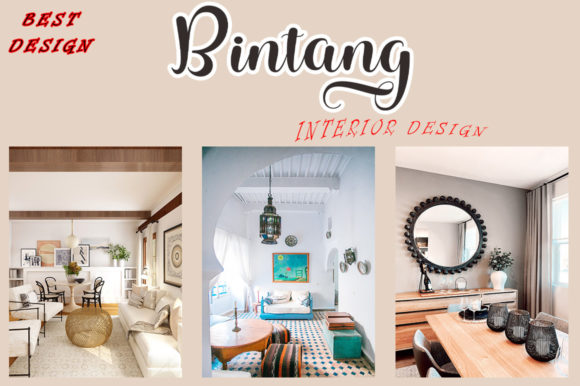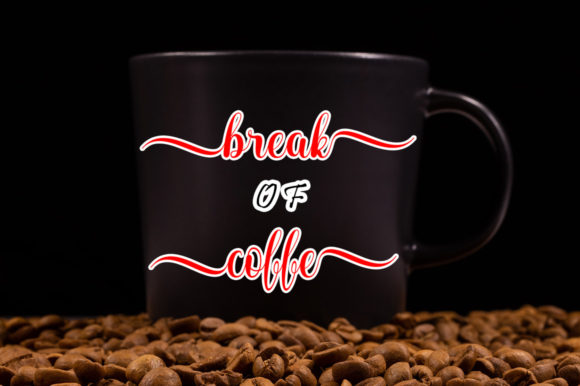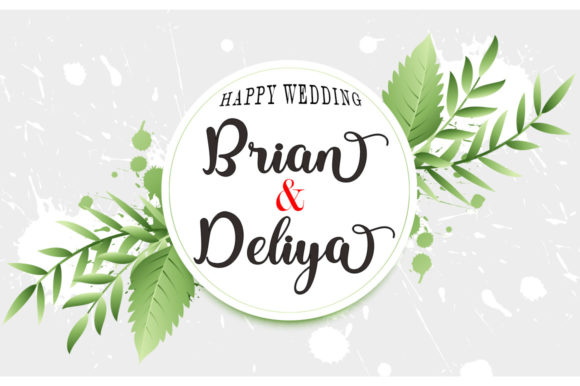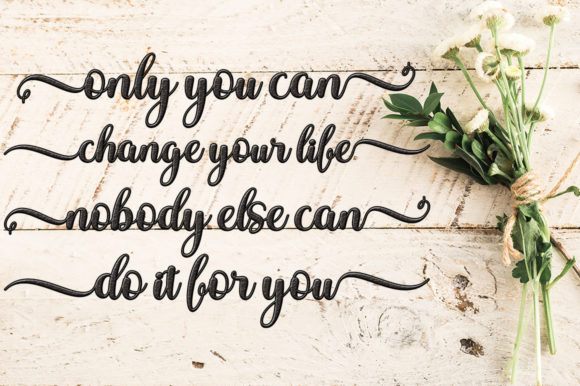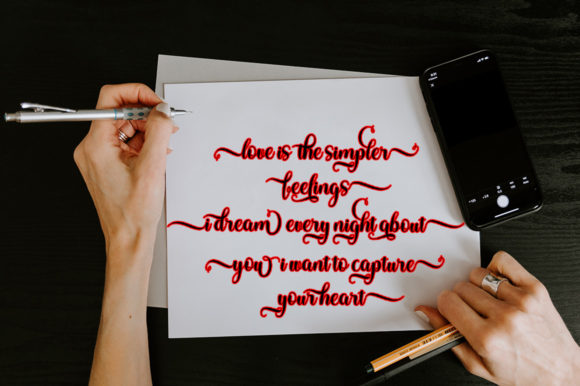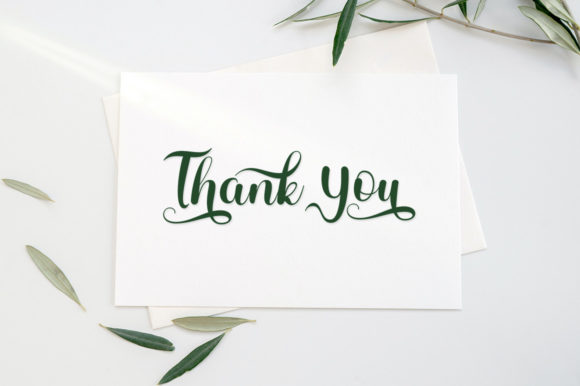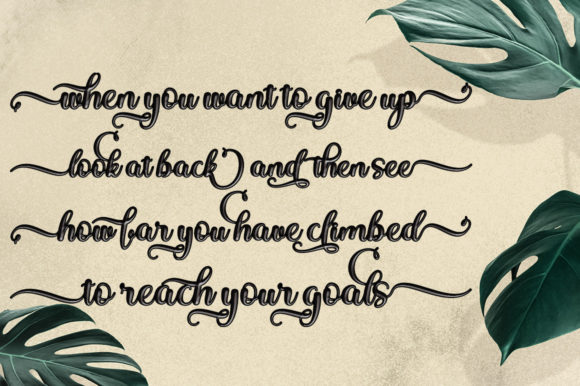
Bulan Font
About Bulan Font
**Bulan Font: Stylish Elegance for Timeless Designs**
Step into the world of refined design with the “Bulan” font – a stylish and beautiful script font that effortlessly balances grace and character. Whether you’re working on a diverse range of design projects, “Bulan” offers a timeless elegance that enhances the visual appeal of your creations.
The allure of “Bulan” lies in its carefully crafted script, where each character exudes a sense of style and beauty. The font strikes a perfect balance, making it suitable for a large design pool – from logos and branding to invitations, labels, and more.
For logos and branding, “Bulan” becomes a distinctive mark of sophistication. Its stylish characters create a visual identity that stands out with elegance, making a lasting impression on your audience. The font adds a touch of class to your brand visuals, setting the tone for a refined and memorable presence.
In the realm of invitations and labels, “Bulan” elevates the design with its beautiful and balanced characters. Whether you’re announcing a special event or labeling a product, the font lends an air of timeless charm, making your message visually appealing and captivating.
The versatility of “Bulan” extends to a variety of design projects, making it a valuable asset for creatives seeking a font that adapts seamlessly to different contexts. Its PUA encoding ensures easy access to all glyphs and swashes, providing you with a range of design elements to enhance your creative freedom.
Imagine “Bulan” as the brushstroke that adds a touch of stylish elegance to your designs. It’s more than just a font; it’s an invitation to infuse your creative projects with a timeless aesthetic. So, whether you’re working on branding, invitations, labels, or other design ventures, let “Bulan” be the font that brings a sense of refined beauty to your creative endeavors.